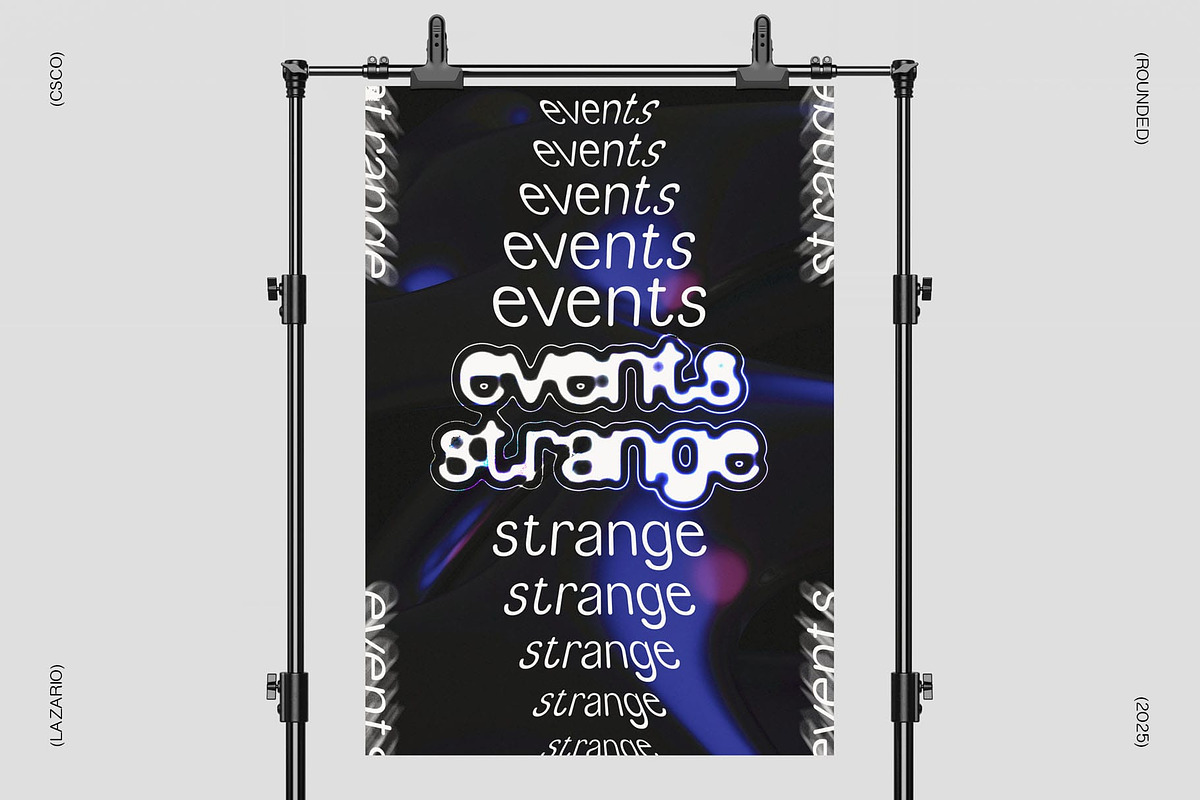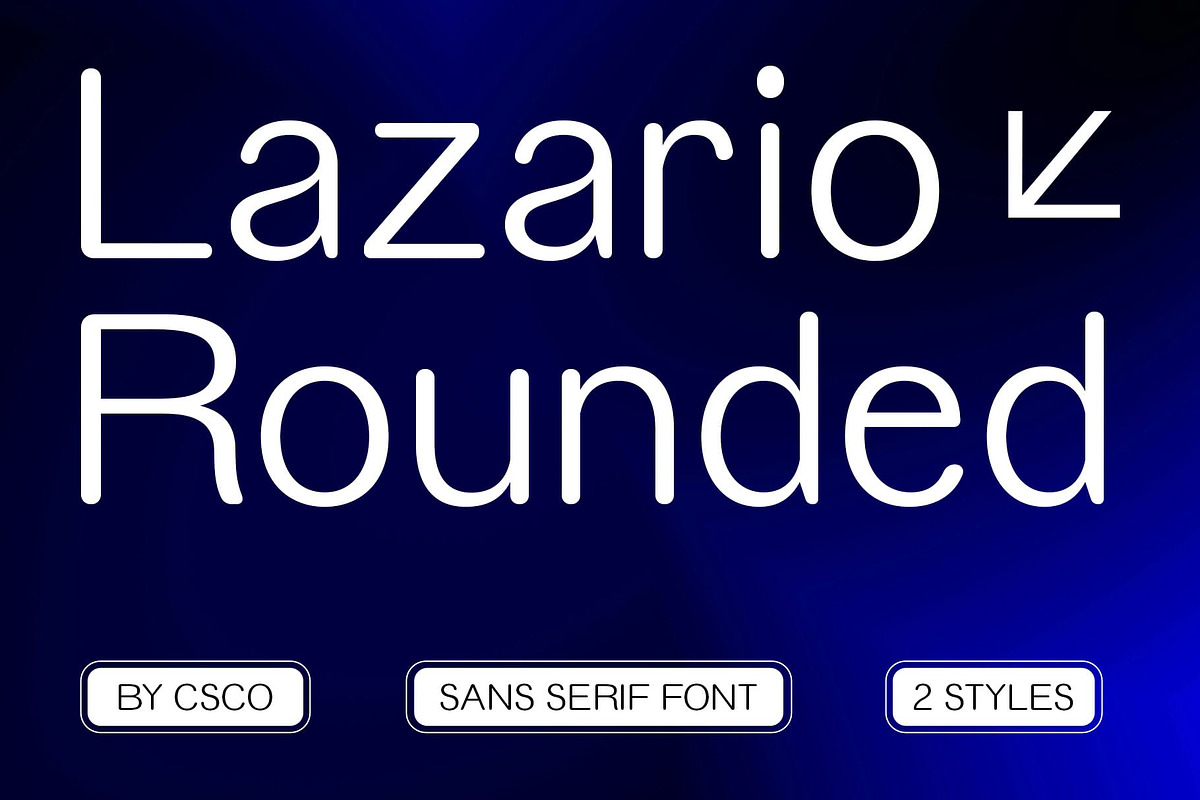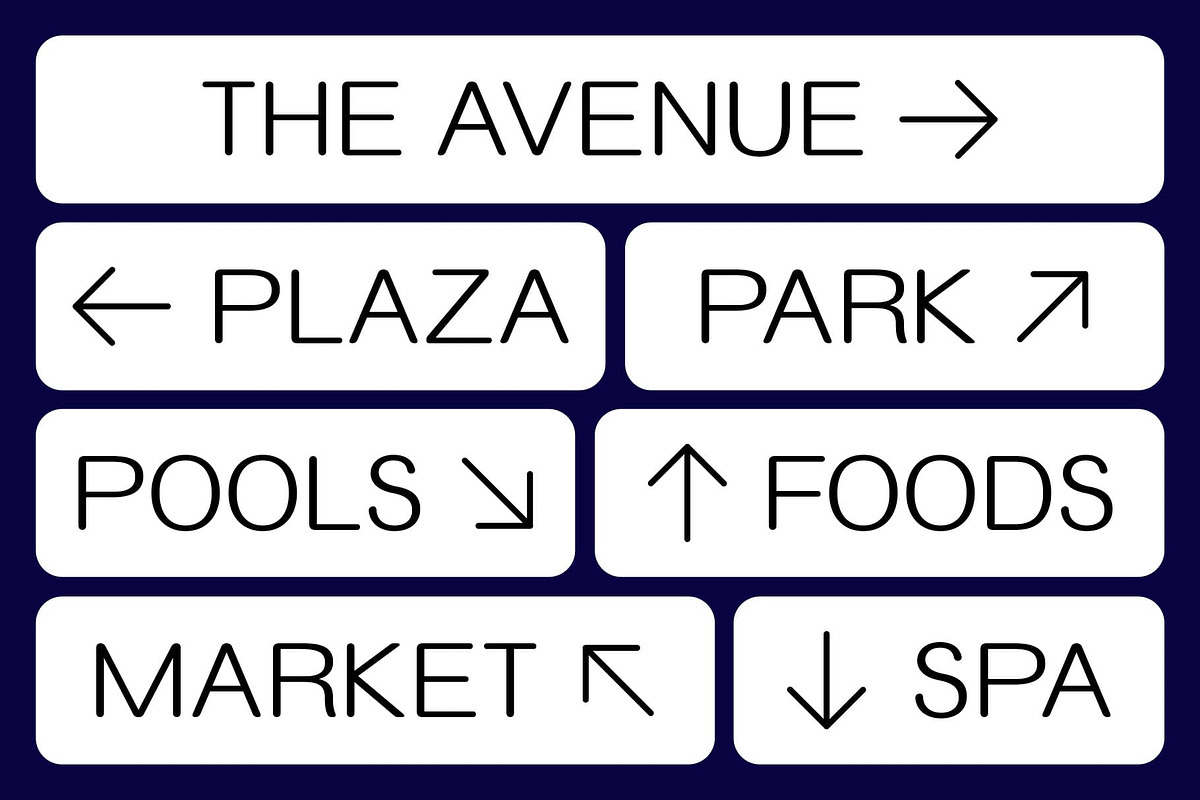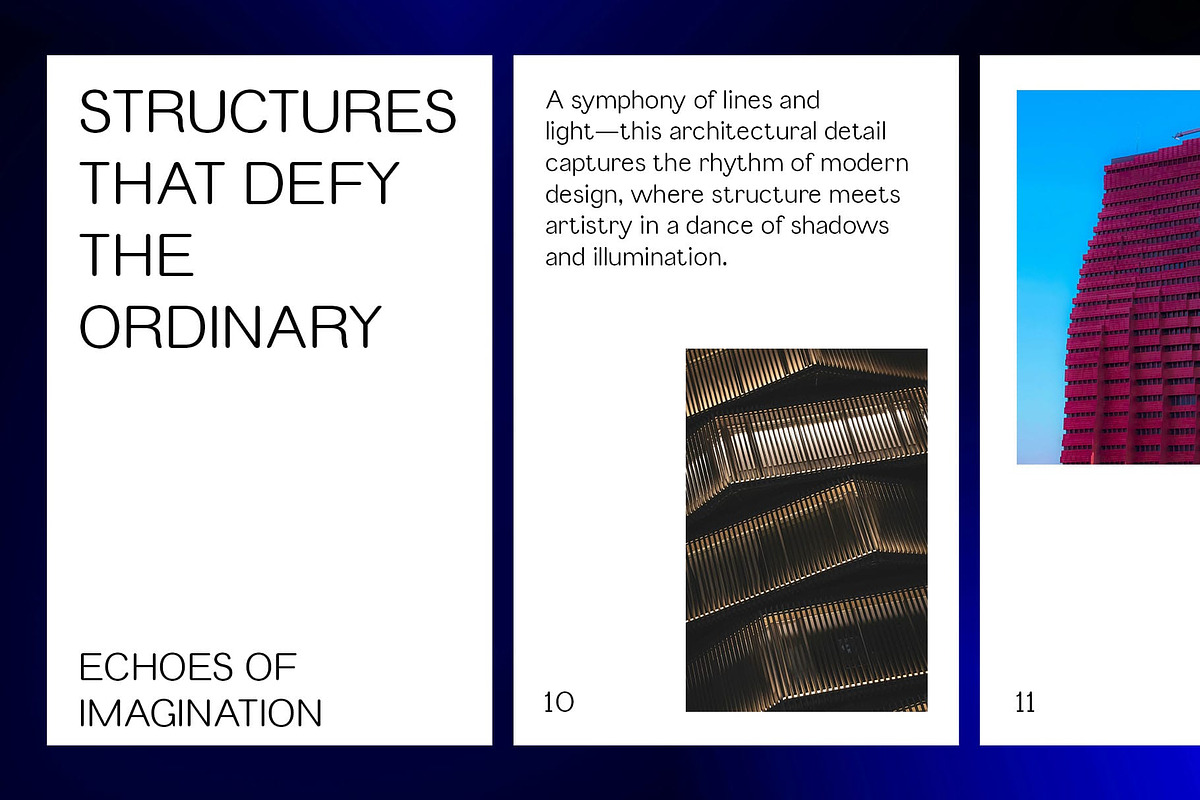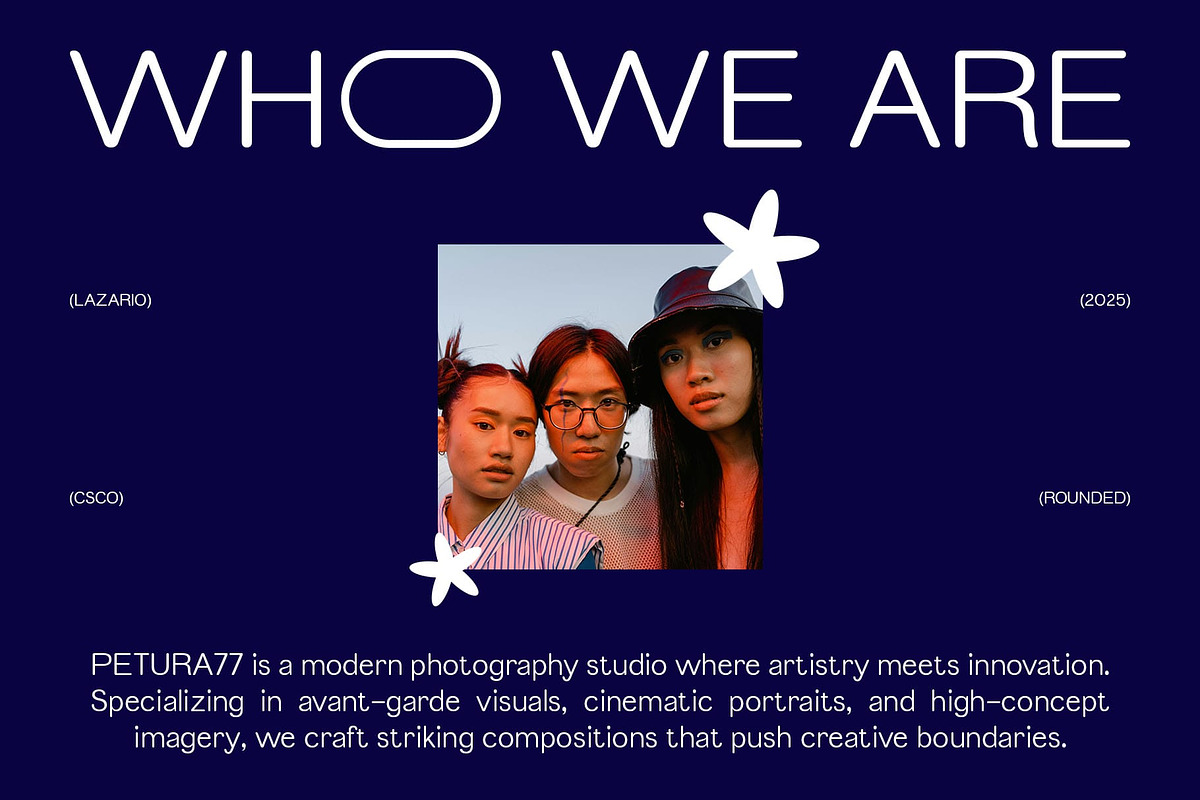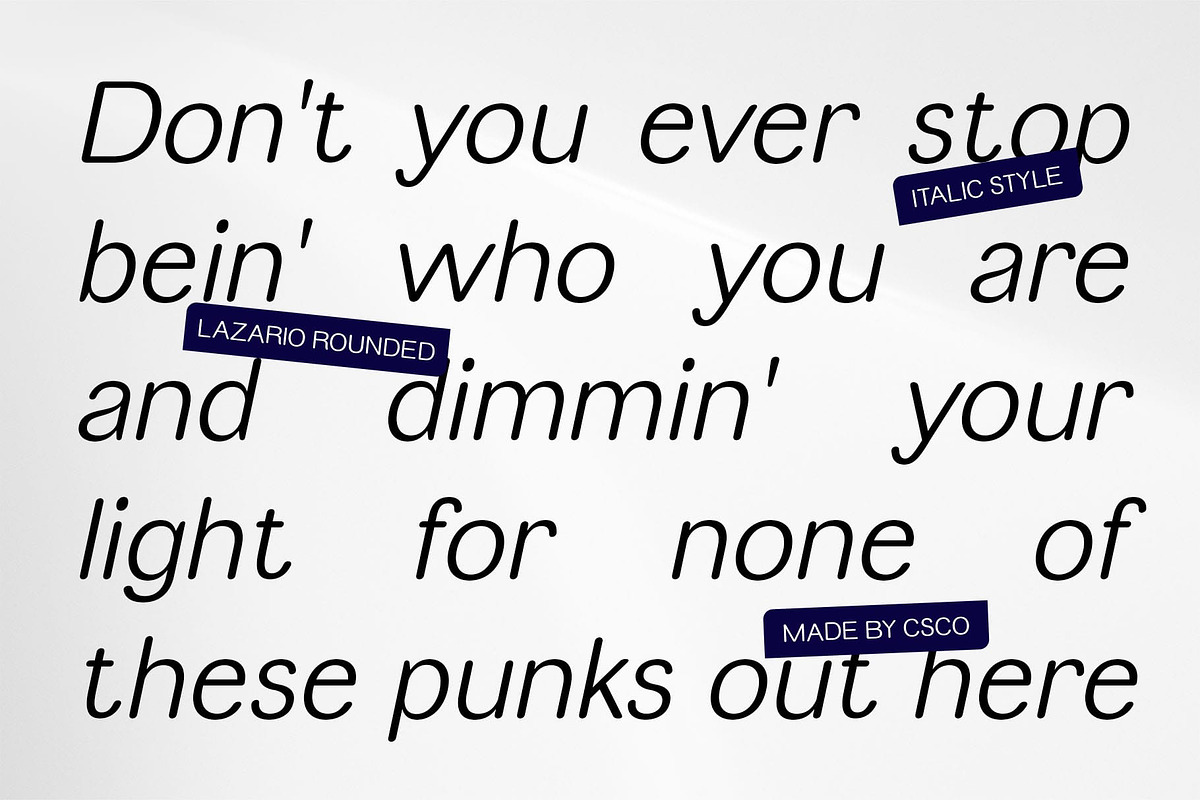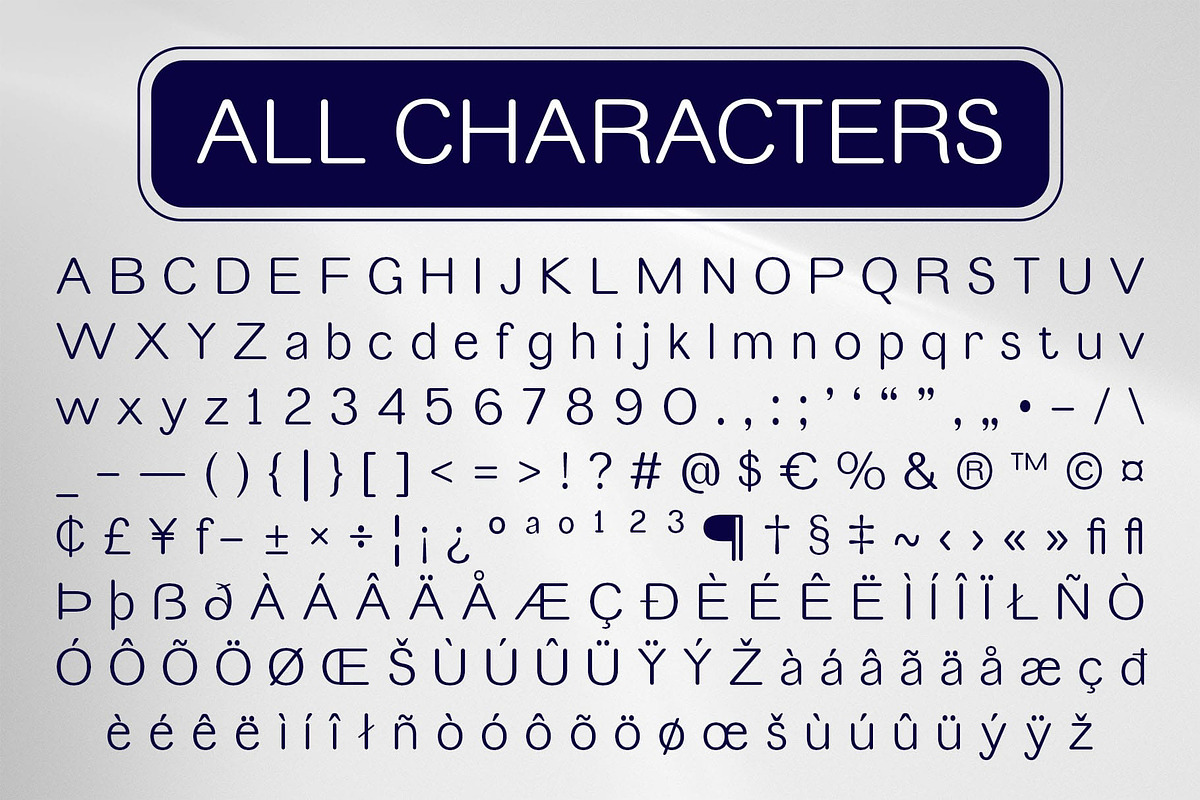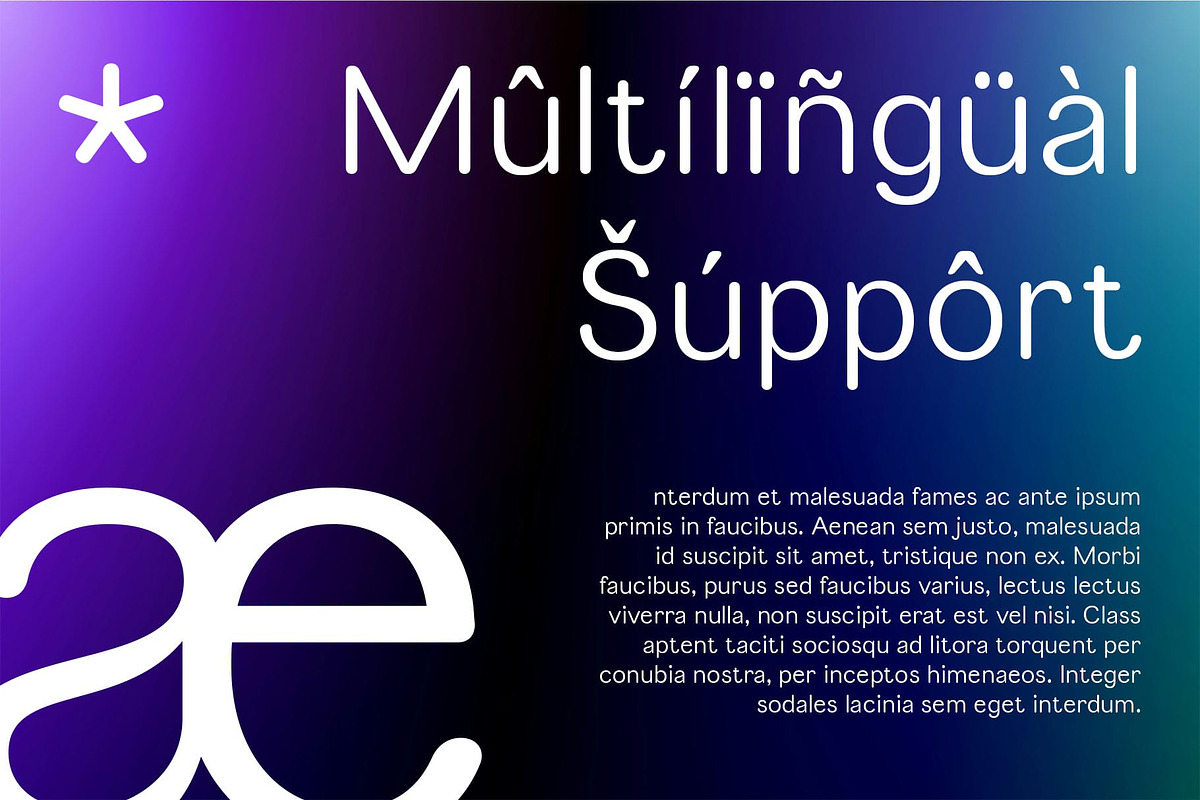
Lazario Rounded
Lazario Rounded Font – Clean Geometry with a Friendly Edge
Modern Sans-Serif Font with Rounded Grotesque Style Lazario Rounded is a modern sans-serif font that merges the structured elegance of grotesque geometry with the warmth of rounded detailing. This combination results in a clean, balanced, and inviting typeface that feels both contemporary and human-centric.
Grotesque Geometric Form with Softness Built on a geometric grotesque foundation, Lazario Rounded maintains a solid, organized rhythm in its letterforms. The addition of rounded terminals softens its tone, creating a more personable and approachable feel—perfect for brands and interfaces that want to be modern without appearing too rigid.
Balanced and Versatile for Digital Use With its smooth curves and proportional construction, Lazario Rounded excels in digital applications. It offers high readability across screen sizes and resolutions, making it a smart choice for UI/UX design, web content, apps, and modern tech branding.
Modern Visual Identity with a Friendly Personality Ideal for branding, product design, social media, and advertising, Lazario Rounded supports a visual tone that is clean yet expressive. Whether used in headlines or body text, it enhances clarity while adding just the right amount of character to elevate your design.
- Lazario Rounded Regular
- Lazario Rounded Italic